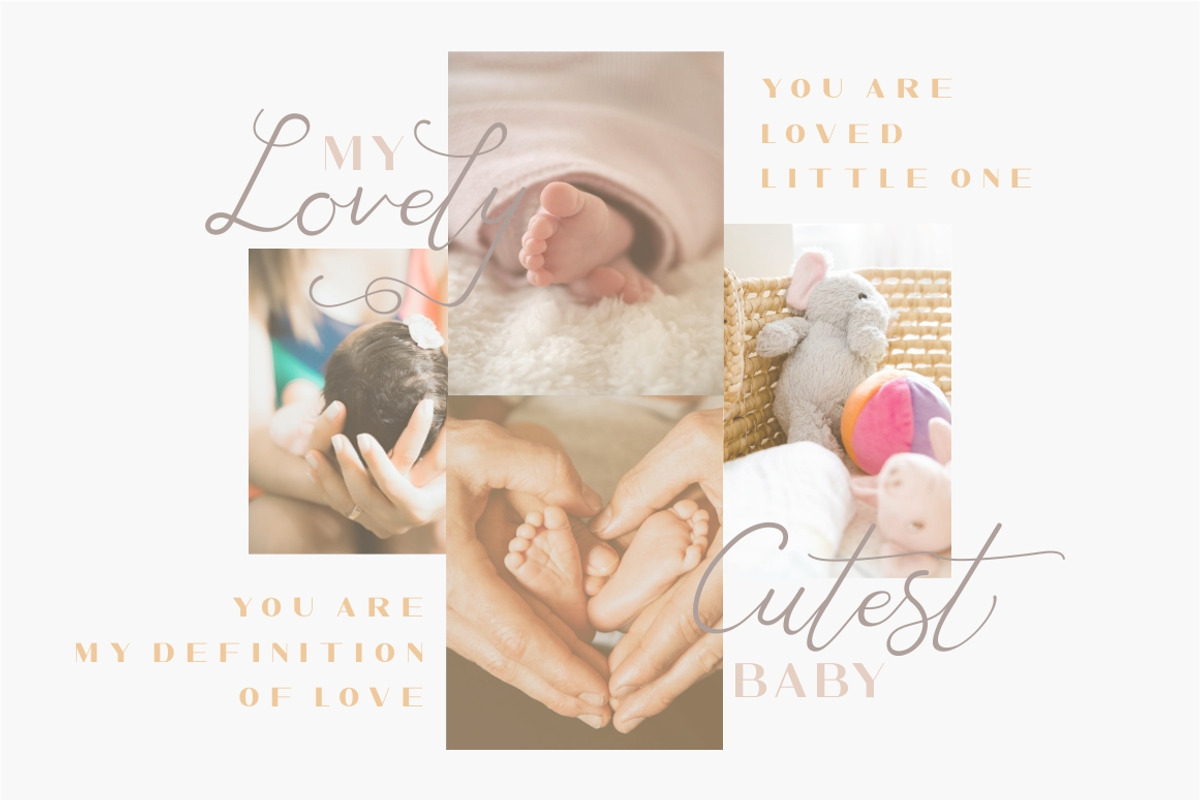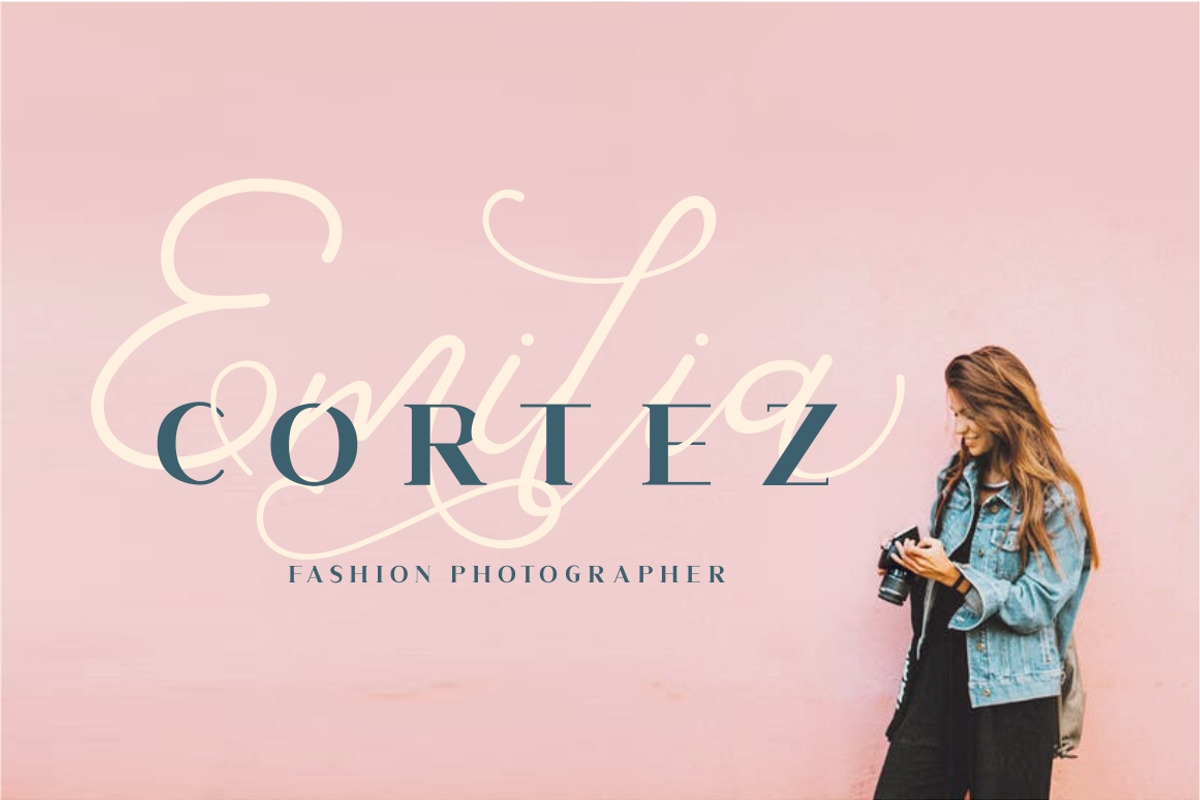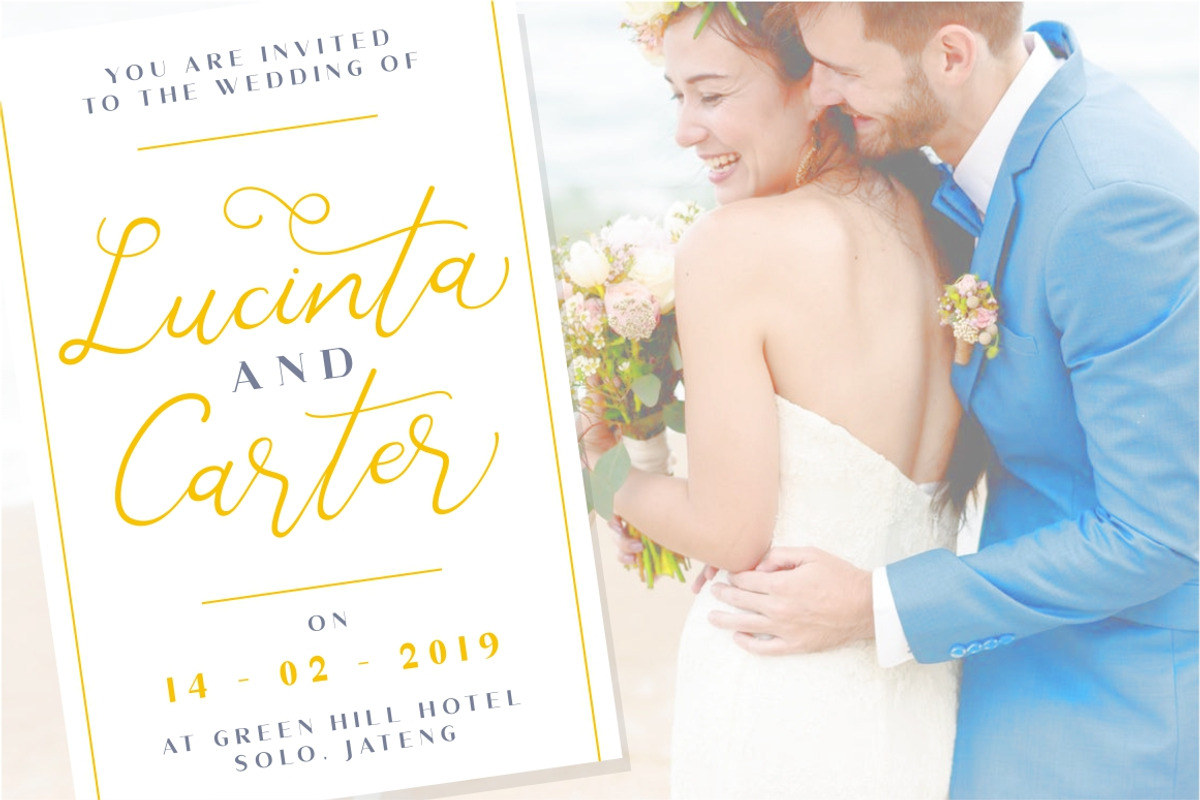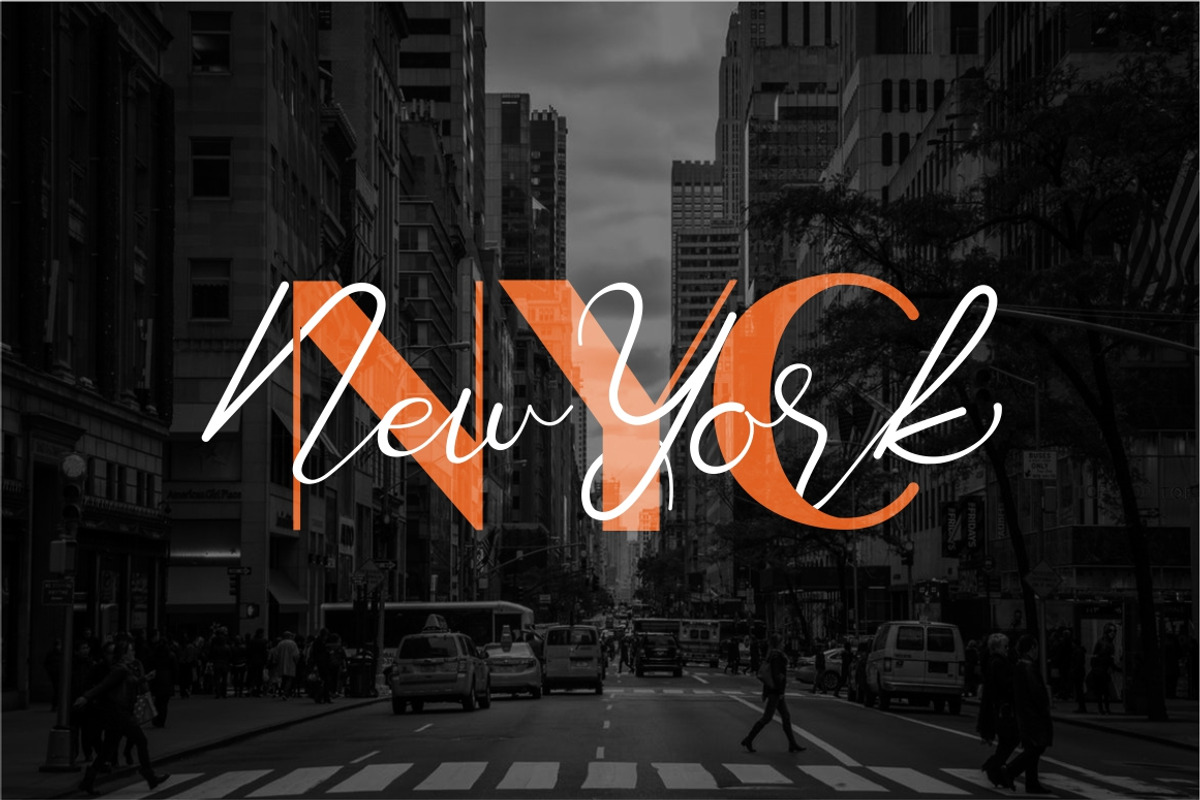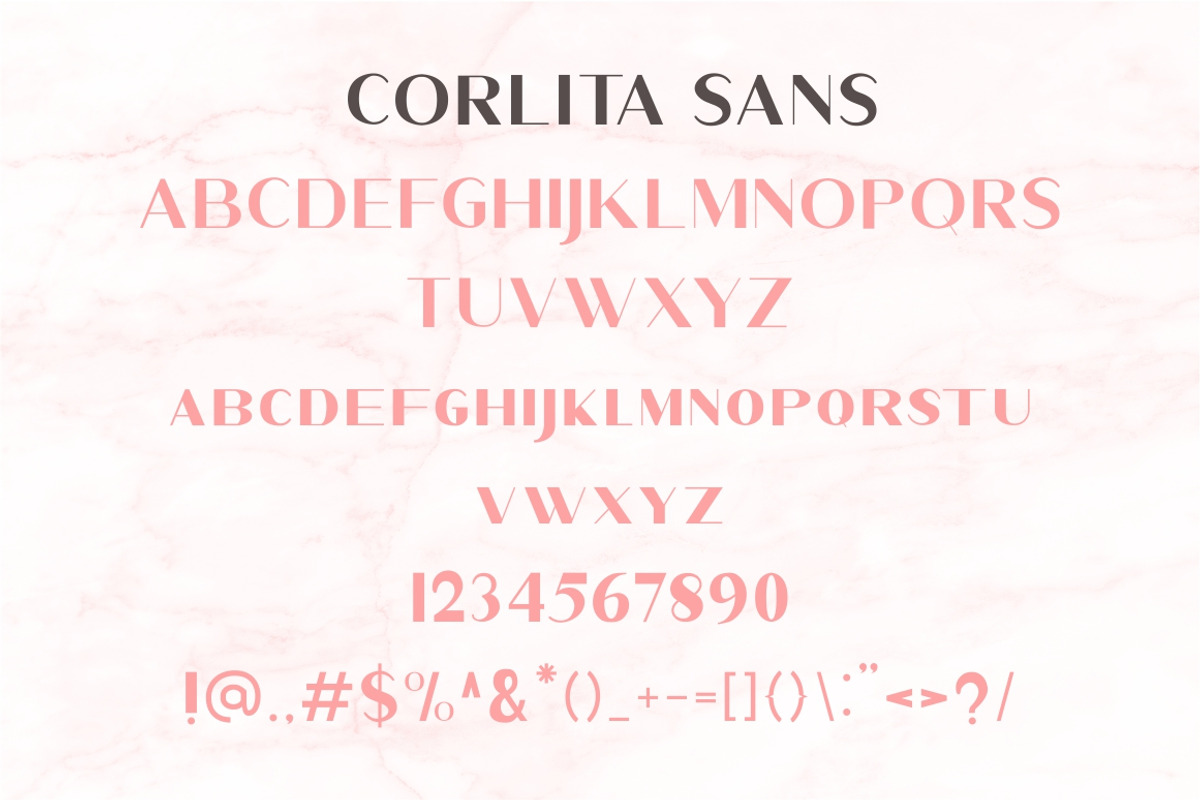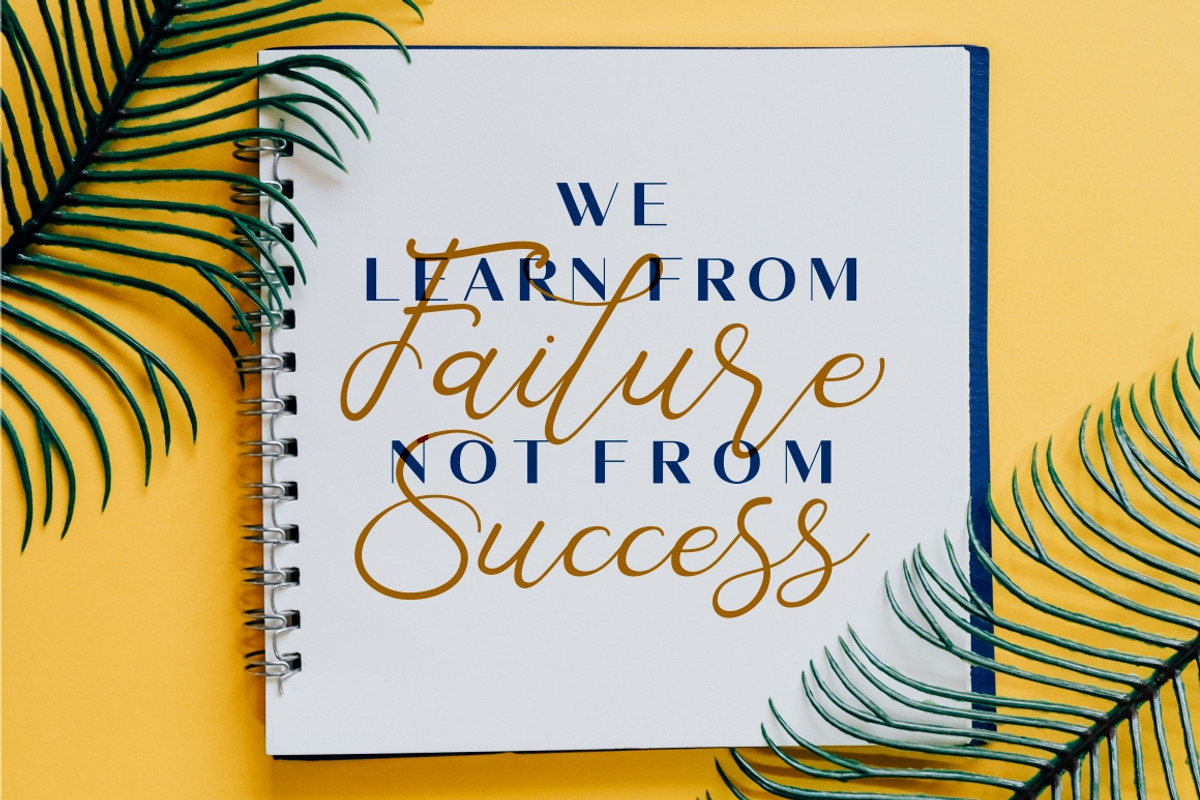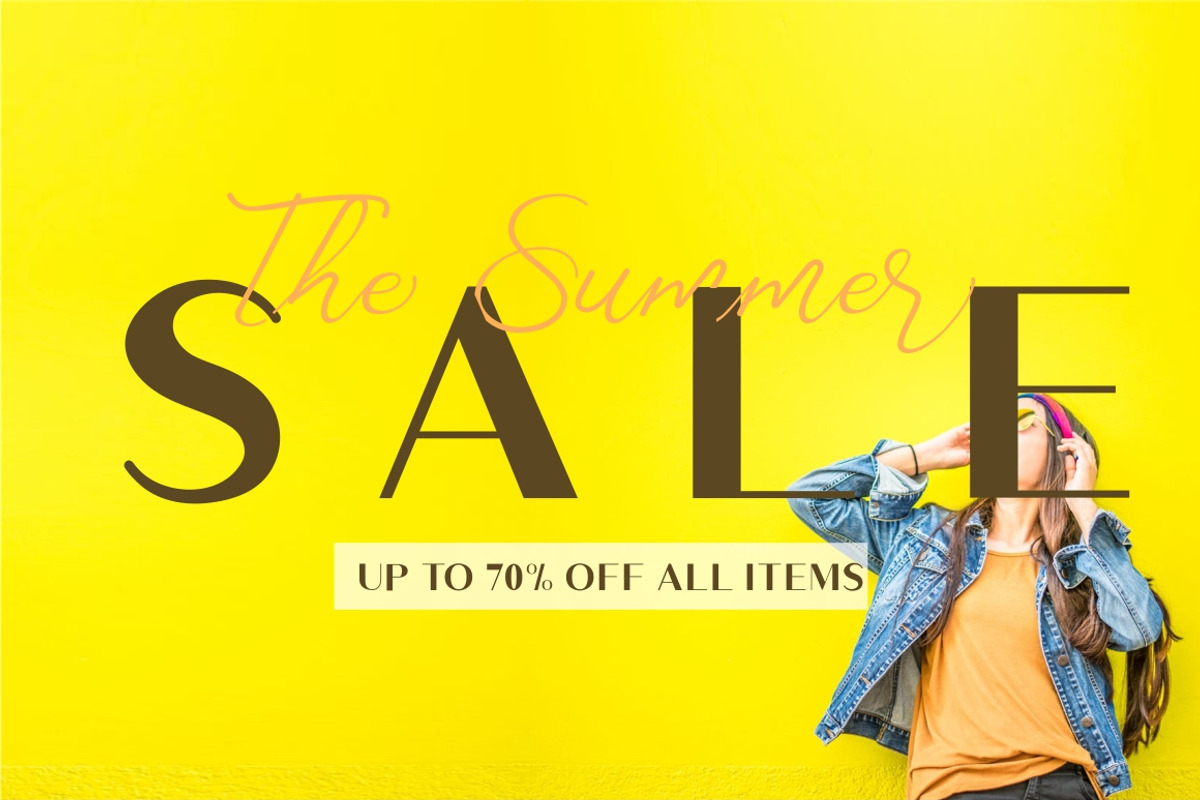
Corlita - Font Trio
CORLITA is a beautiful and modern font trio (sans ,serif and script ). a perfect pair, can created to mix together. CORLITA perfect for branding, wedding invite and card, elegant logo, poster, packaging, stationery, website, and many more.
Why Corlita - Font Trio is worth a look
Corlita - Font Trio by PutraCetol Studio fits naturally into Branding, posters, packaging, typography.